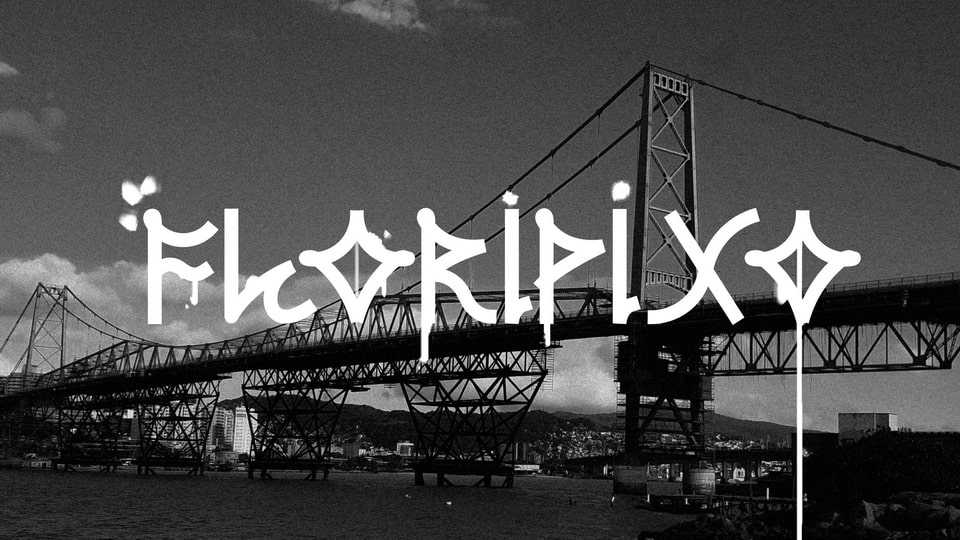
Download Floripixo font, a display typeface inspired by graffiti in Greater Florianópolis region, bringing the unique essence of street language.
Designer: Octávio Barcelos Della Barba